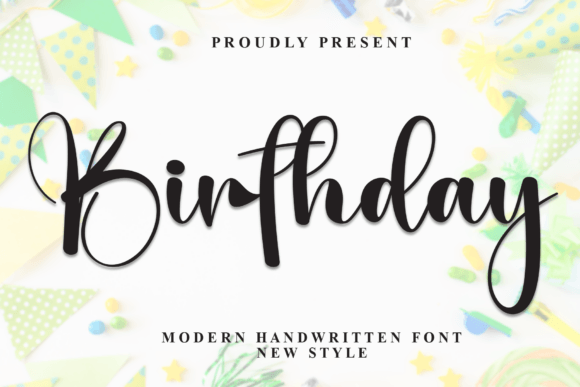
The Perfect Script for a Special Day
Have you ever sat down with a pen and paper, brainstorming ideas for a loved one’s birthday? The excitement builds up as you start sketching out the perfect card or invitation, pouring your heart into every detail. And then, it hits you – the perfect font to bring your design to life! For designers and crafty individuals alike, finding the right font can make all the difference in creating a truly special and memorable celebration.
Enter the Birthday Font, a playful handwritten font that captures the essence of a child’s scribbles and grown-up charm. This delightful font is designed to add a personal touch to your messages, making it perfect for birthday cards, invitations, and celebrations of all kinds. With its cute and casual style, the Birthday Font is a valuable addition to any designer’s toolkit, allowing them to create unique and eye-catching designs that will leave a lasting impression.
Birthday Font Key Features
- Unique Characteristics: Features a celebratory and playful design, making it ideal for birthday-themed projects, invitations, and party decorations.
Birthday Font Review
Overall, I think the Birthday Font is a solid choice for any celebratory project, but it’s not without its quirks. Let’s start with the good stuff:
- ✨ The font is extremely easy to read, even in smaller sizes. It’s perfect for creating invitations, party decorations, or other materials where clarity is key.
- ✨ The font’s playful, cursive design makes it ideal for birthday-themed projects. It adds a touch of whimsy and fun to any design.
- ✨ The font is highly customizable, allowing you to adjust the color, size, and style to fit your design needs.
Now, let’s talk about the limitations:
- ⚠️ The font may not be suitable for formal or professional projects, as it has a more casual, playful feel.
- ⚠️ Some users may find the font’s cursive design a bit too ornate or distracting, especially in larger sizes.
Overall, I think the Birthday Font is a great choice for projects where a fun, celebratory vibe is needed. Just be aware of its limitations, and use it judiciously to avoid any potential issues.
Birthday Font is commonly used for:
- Birthday invitations and party decorations.
- Custom birthday cards and photo editing projects.
- Birthday presentations and social media posts.
- Party banners and decorations.
Alternatives to Birthday Font for Designers
Great Vibes is a beautiful, cursive font that is perfect for creating a whimsical and playful atmosphere. It’s ideal for use in invitations, greeting cards, and other celebratory materials. Compared to Birthday Font, Great Vibes has a more elegant and refined feel, making it suitable for more formal occasions.
Pacifico is a modern, elegant script font that is great for adding a touch of sophistication to your designs. It’s perfect for use in wedding invitations, anniversary cards, and other special occasion materials. While Birthday Font is more playful and childish, Pacifico is more mature and refined, making it a great alternative for designers who want to convey a sense of elegance.